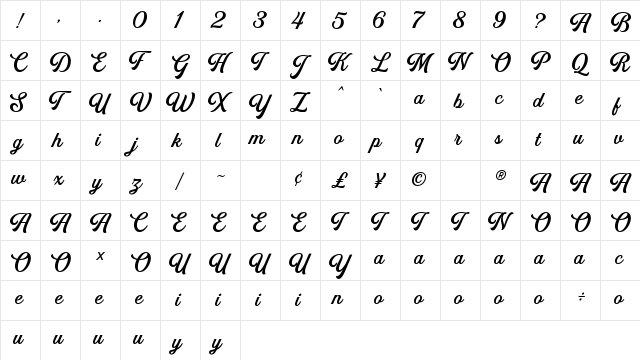
Golden Hills DEMO Regular
| Designer | Iqbal Habibi |
Design Context for Golden Hills DEMO Typeface
Golden Hills DEMO is a composed and adaptable typeface that performs quietly and consistently across a wide range of design contexts.
Pro Tip: Use Golden Hills DEMO in both headline and body roles to test its range before committing to a single application.